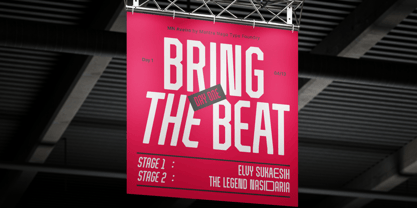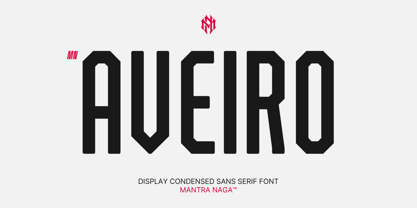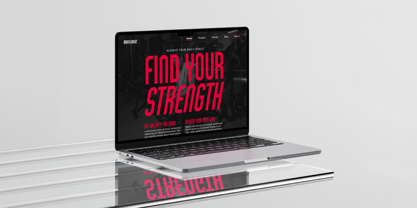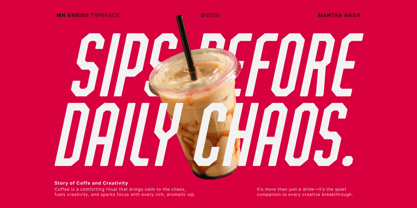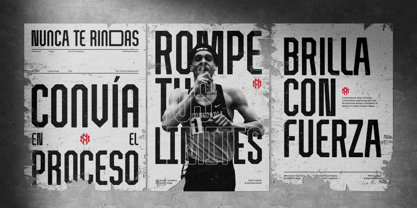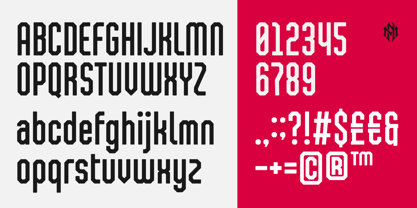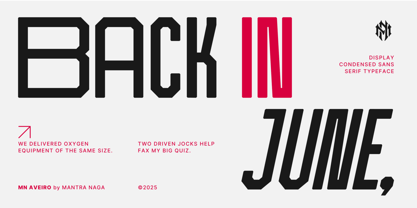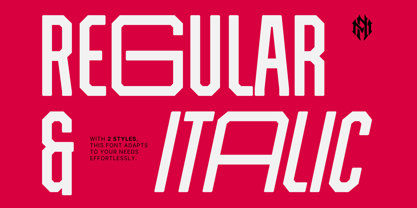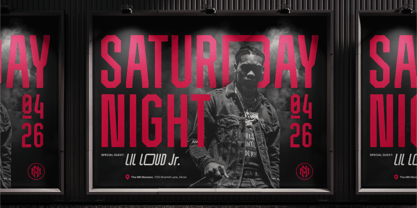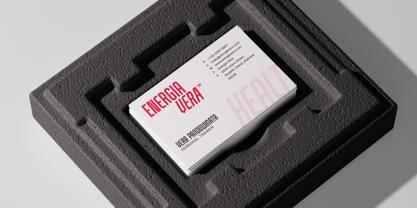
MN Aveiro
by Mantra Naga Studio
The MN Aveiro Font Family was designed by Fredo Eka Pratama and published by Mantra Naga Studio. MN Aveiro contains 2 styles and family package options. More about this family
MN Aveiro is a bold, geometric display condensed sans serif font created by Mantra Naga. Designed for maximum impact, Aveiro features sharp angles, tight spacing, and solid vertical strokes that command attention. Its unique, almost architectural letterforms make it ideal for headlines, posters, branding, sports designs, and urban themes. The font carries a modern, confident tone—perfect for projects that demand a strong visual presence without sacrificing clarity.
Designers: Fredo Eka Pratama
Foundry: Mantra Naga Studio